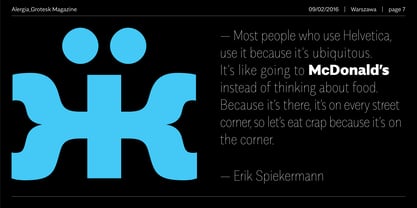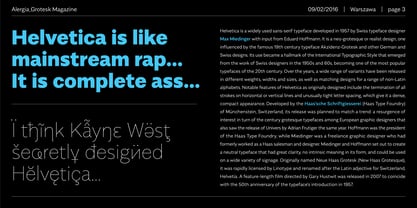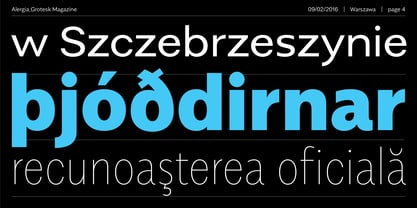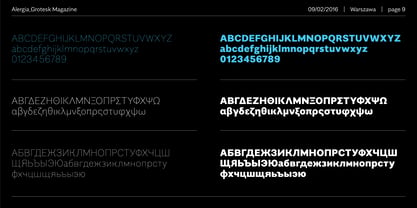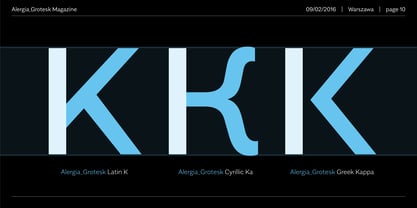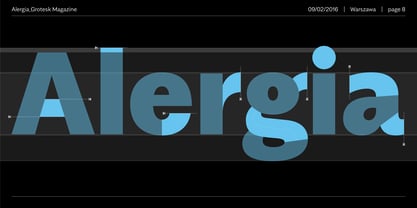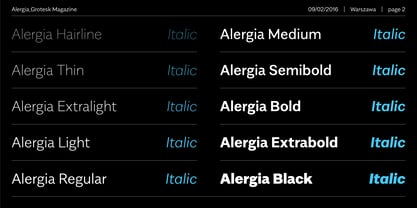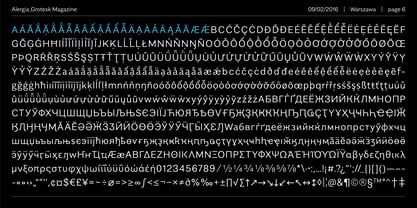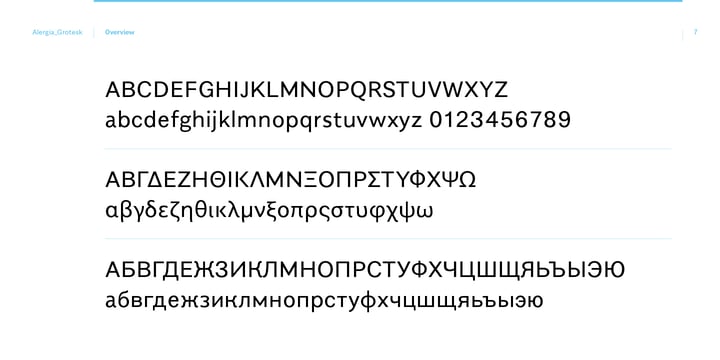
Alergia Grotesk
von Machalski
Die Schriftfamilie Alergia Grotesk wurde von Mateusz Machalski entworfen und von Machalski veröffentlicht. Alergia Grotesk enthält 60 Stile und Familienpaketoptionen.
Alergia Grotesk was made as a hybrid between a classical geometric grotesque and a linear antiqua. This typeface is characterised by a lot of details, which gives it a strong character. Unpredictable cuts in a letters “a” and “s”, or a double “g” in combination with a delicate contrast, makes Alergia Grotesk a good choice for many purposes from headlines to short flowing texts. A big range of width varieties allows to versatile use and can give a nice effect while mixing extreme varieties with each other in one project. The family consists of 10 weights, 3 widths and set of italics – together 60 styles. The whole family has a comprehensive set of characters. In addition to the Latin letters, Alergia Grotesk also has a full set of characters for Vietnamese, extended Cyrillic (with Abkhasian) and Greek.
Designer: Mateusz Machalski
Dr hab. Mateusz Machalski, Associate Professor (b. 1989) – Vice-Rector for Artistic Affairs at the Academy of Fine Arts in Warsaw. Designer, typographer, lecturer and researcher specializing in visual communication and graphic design. He graduated with Rector’s Honours from the Faculty of Graphic Arts at the Academy of Fine Arts in Warsaw (2009–2014), where he currently teaches at the Multimedia Artistic Creation Studio. Named Designer of the Year 2019 at the Polish Graphic Awards, he has been repeatedly awarded in national and international competitions, including KTR, Ascender 2018 – Type Directors Club New York, MUSTHAVE, The DieLine, Red Dot Design, The Best of Design 2018 – Klub Twórców Reklamy, and Animator 2020 – DESIGN ALIVE. He is a five-time recipient of the Polish Ministry of Culture’s scholarship, a laureate of the Ministry of Science and Higher Education’s scholarship for outstanding young researchers, and of the “Young Poland” programme by the National Centre for Culture. He was awarded the Centennial of Regained Independence Medal by the President of Poland. He is a curator and member of the programme board of the International Poster Biennale in Warsaw, and Art Director of the magazines newonce paper and Warsawholic. He has created more than 80 typeface families – including numerous corporate and multi-script designs – and over 200 visual identities for companies, institutions and cultural events. His fonts are distributed through platforms such as Google Fonts, Adobe and Monotype, and his clients include leading Polish and global brands. He has led teams digitizing key works of Polish typography, including “Półtawski Nowy”, “BRYGADA 1918” (launched at the Presidential Palace), and carried out the long-term “Bona Nova” project together with Andrzej Heidrich – the designer of Polish banknotes. He co-created Typoteka – the first Polish index of typography (1474–2024). Co-founder of the first Polish type foundry – Capitalics. He is also the author of numerous texts, articles and exhibitions on graphic design and visual culture, as well as the “Creative Typography” course published by Design Practice. He conducts research projects, workshops and lectures at universities and conferences in Poland and abroad.